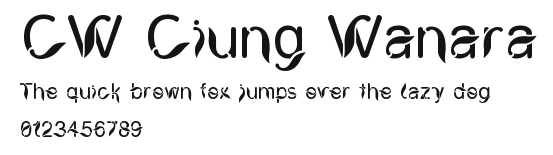
• Font Name: CW Ciung Wanara
• Designer: Andriansyah MK
About CW Ciung Wanara.ttf
CW Ciung Wanara.ttf is a modern, elegant sans-serif font designed for ultimate readability and visual harmony. Perfect for branding, headlines, web design, and print materials.